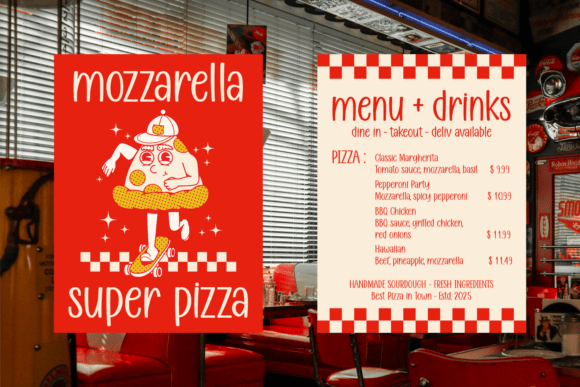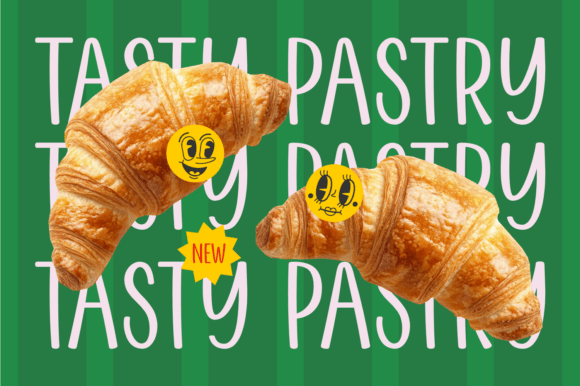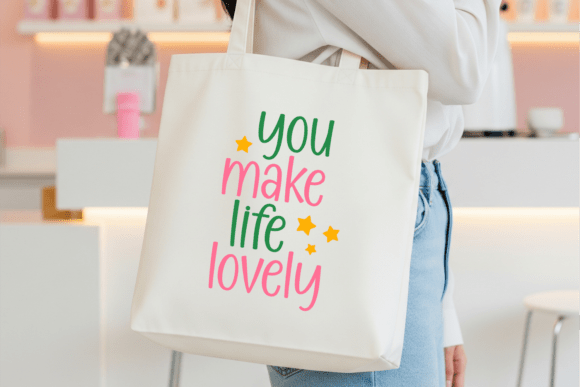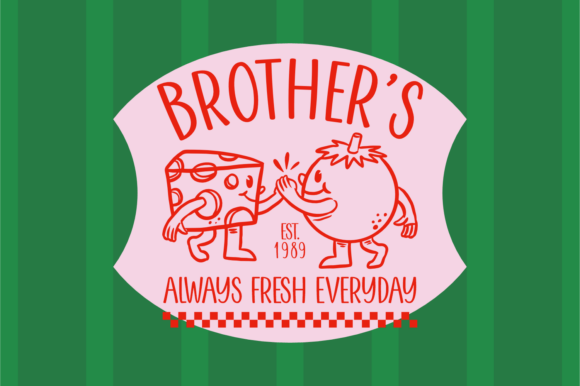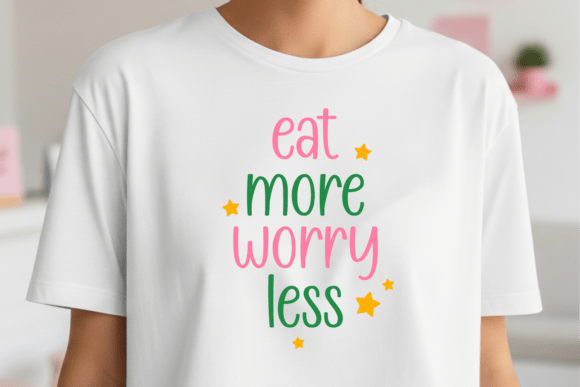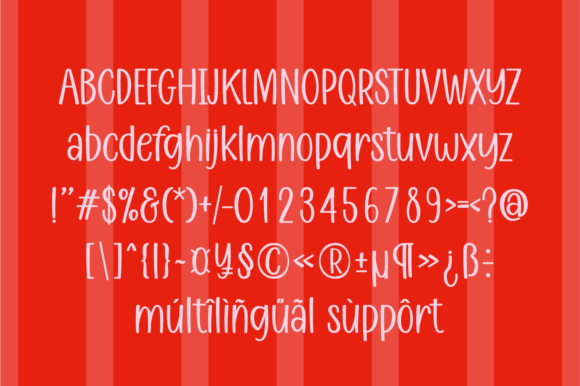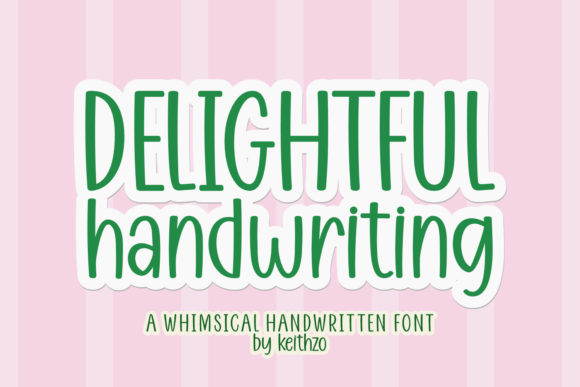
Delightful Handwriting Font: Add a Personal Touch to Your Designs
Are you tired of using the same old fonts in your designs? Do you want to add a personal touch that makes your work stand out? Look no further than Delightful Handwriting, a fun, retro, and totally handwritten font that’s perfect for designers and crafters alike. In this article, we’ll take a closer look at what makes Delightful Handwriting so special and how you can use it to elevate your designs.
The Rise of Handwritten Fonts
In recent years, handwritten fonts have experienced a resurgence in popularity. And it’s easy to see why. Handwritten fonts add a touch of personality and whimsy to any design, making it feel more approachable and human. Whether you’re creating a social media post, a branding project, or a craft project, a handwritten font can help you connect with your audience on a more personal level.
What is Delightful Handwriting?
Delightful Handwriting is a unique and charming font that’s perfect for anyone looking to add a personal touch to their designs. This font is all about that tall, skinny, and whimsical handwritten look that’s trending right now. It’s got just the right amount of retro aesthetic to make your designs feel like a blast from the past, but with a fresh, modern twist.
Key Features of Delightful Handwriting
So, what makes Delightful Handwriting so special? Here are just a few of its key features:
- Tall and Skinny: Delightful Handwriting has a tall and skinny design that’s perfect for creating eye-catching headlines and titles.
- Whimsical: This font has a playful, whimsical feel that’s perfect for adding a touch of personality to your designs.
- Retro Aesthetic: Delightful Handwriting has a retro aesthetic that’s perfect for creating designs that feel like a blast from the past.
- Modern Twist: Despite its retro aesthetic, Delightful Handwriting has a fresh, modern twist that makes it perfect for contemporary designs.
How to Use Delightful Handwriting
Delightful Handwriting is a versatile font that can be used in a variety of design projects. Here are just a few ideas to get you started:
- Social Media Posts: Use Delightful Handwriting to create eye-catching social media posts that stand out from the crowd.
- Branding Projects: This font is perfect for creating retro-inspired branding projects that feel fresh and modern.
- Craft Projects: Delightful Handwriting is also perfect for craft projects, such as making cards, gift tags, and other handmade items.
Tips for Using Delightful Handwriting
Here are a few tips for using Delightful Handwriting in your designs:
- Keep it Simple: Delightful Handwriting is a simple, yet effective font. Keep your designs simple and uncluttered to let the font shine.
- Experiment with Colors: This font looks great in a variety of colors. Experiment with different colors to find the perfect look for your design.
- Mix and Match: Don’t be afraid to mix and match Delightful Handwriting with other fonts to create a unique and interesting design.
Delightful Handwriting is a fun, retro, and totally handwritten font that’s perfect for designers and crafters alike. With its tall, skinny design, whimsical feel, and retro aesthetic, this font is sure to add a personal touch to any design. Whether you’re creating a social media post, a branding project, or a craft project, Delightful Handwriting is a great choice. So why not give it a try and see how it can elevate your designs?
- What is Delightful Handwriting? Delightful Handwriting is a fun, retro, and totally handwritten font that’s perfect for designers and crafters alike.
- What are the key features of Delightful Handwriting? Delightful Handwriting has a tall and skinny design, whimsical feel, and retro aesthetic.
- How can I use Delightful Handwriting? Delightful Handwriting can be used in a variety of design projects, such as social media posts, branding projects, and craft projects.